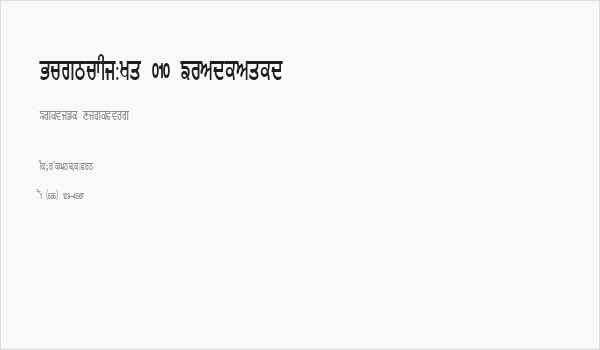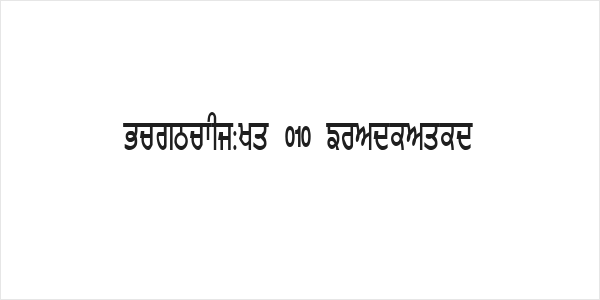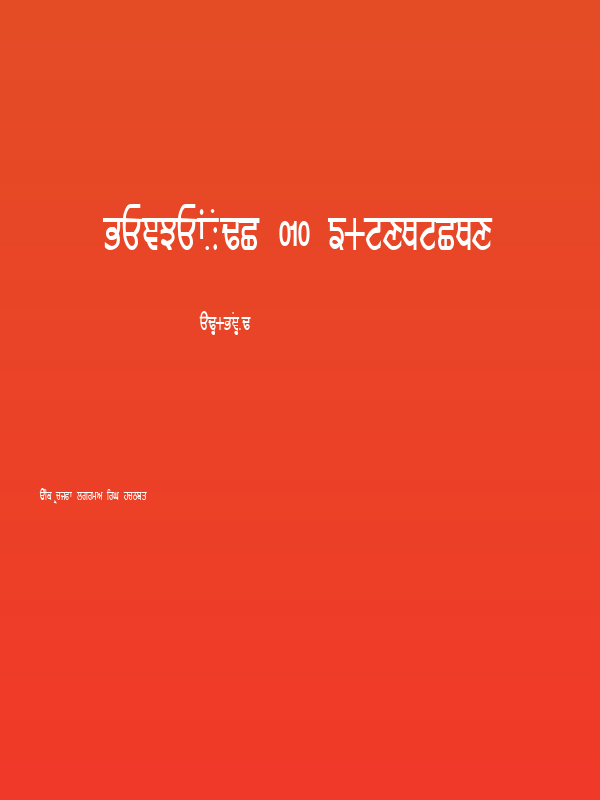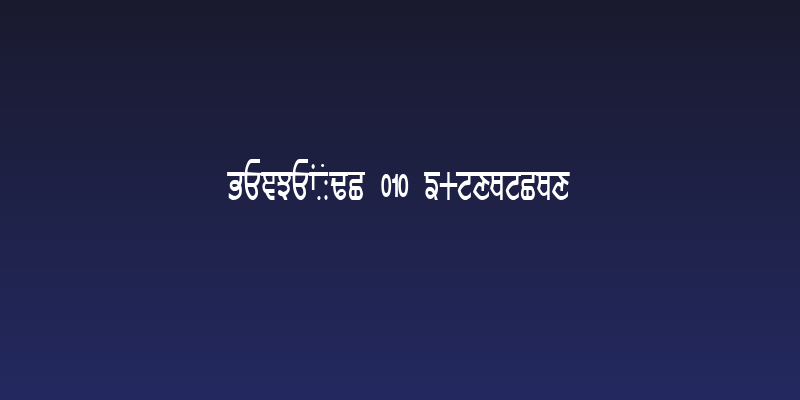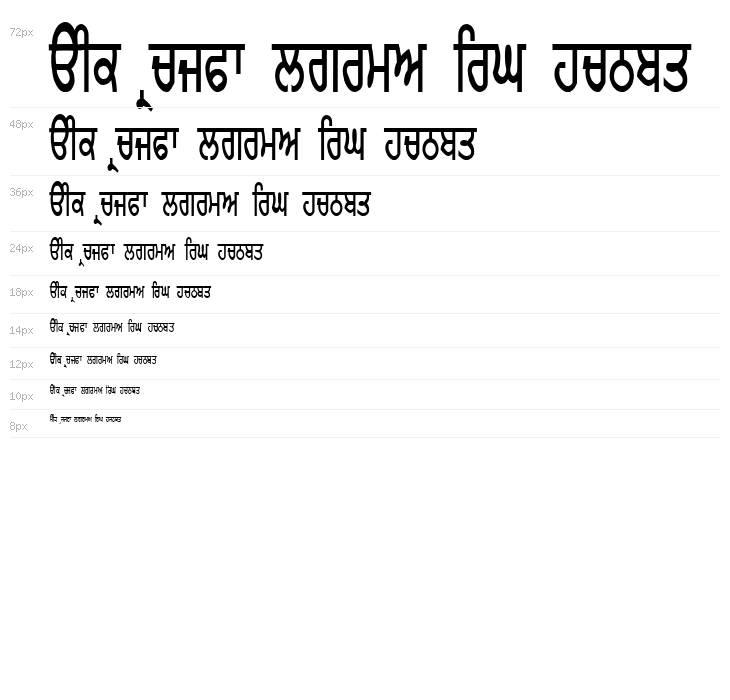
GurmukhiLys 010 Condensed Font
GurmukhiLys 010 Condensed Description
This font is a Gurmukhi script characterized by its condensed form, offering a modern and clean appearance. The characters are tightly spaced, enhancing readability while maintaining a compact structure. The strokes are bold and consistent, providing a strong visual impact. The numerals are clear and distinct, matching the overall style of the script. Special characters are well-integrated, ensuring versatility in various contexts. The font's design is suitable for both digital and print media, making it a versatile choice for various applications.
| Use Case | Headlines, Signage, Branding |
| Proposed Projects | Ideal for signage, headlines, branding, and educational materials requiring Gurmukhi script. |